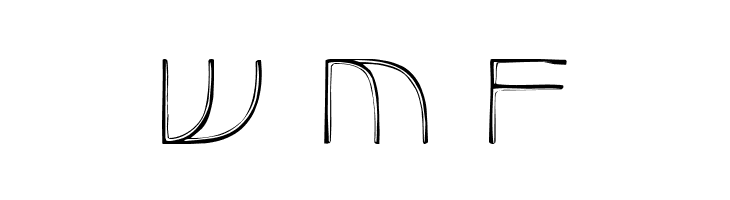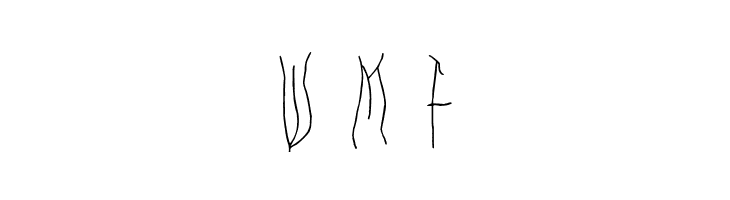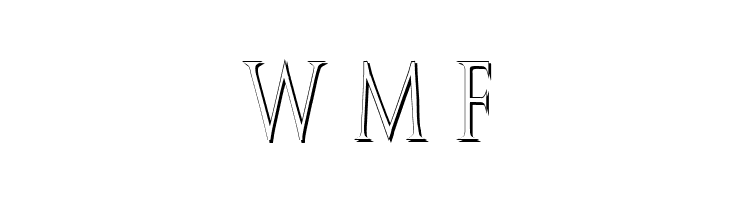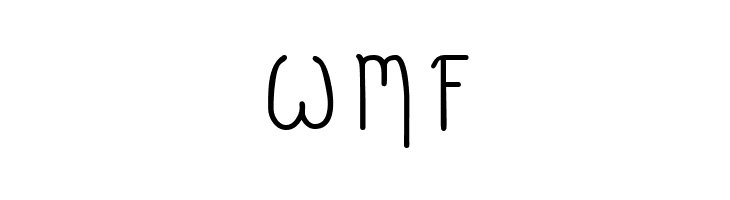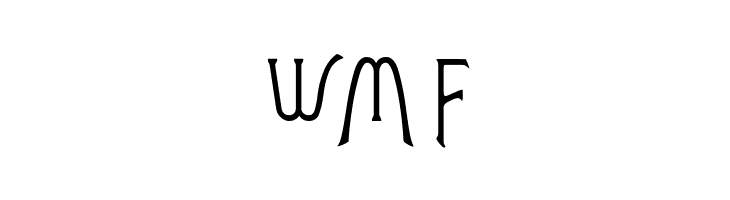
A bold, italicized font with elongated, narrow characters and a modern, dynamic style.
A modern, geometric font with elongated, outlined characters.
A sleek, elongated italic font with outlined characters and a modern aesthetic.
A modern, italic font with elongated, narrow characters.
A modern, sleek font with elongated, rounded characters and a futuristic feel.
A sleek, modern italic font with elongated characters and consistent stroke width.
A modern, minimalist font with thin, elongated strokes and geometric structure.
A decorative, high-contrast font with elongated, narrow letterforms and sharp serifs.
A sleek, modern italic font with thin, elongated letterforms.
A sleek, modern font with elongated, thin strokes and a sophisticated appearance.
A sleek, modern font with elongated, narrow characters and a clean aesthetic.
A bold, elongated font with a vertical emphasis and consistent stroke width.
A dynamic, slanted font with elongated characters and a modern, energetic style.
A modern, geometric font with elongated, narrow characters and rounded edges.
A modern-vintage font with curved, elongated letterforms and art deco influences.
A sleek, modern italic font with elongated, narrow characters and low contrast.
A tall, slender serif font with elegant, elongated characters.
A modern serif font with elegant, elongated letterforms and sharp serifs.
A sleek, modern font with thin, elongated letterforms and consistent stroke width.
A modern, geometric font with elongated, sleek characters.
A sleek, geometric font with narrow, elongated characters and a modern aesthetic.
A whimsical, hand-drawn font with elongated, irregular letterforms.
A playful, hand-drawn font with elongated, irregular letterforms and a whimsical style.
A hand-drawn, modern font with elongated, playful characters and geometric elements.
An intricate and artistic font with swirling, elongated strokes and decorative flourishes.
A dynamic, expressive handwritten font with sharp, elongated strokes.
A mirrored, hand-drawn font with elongated characters and varying stroke thickness.
A whimsical, hand-drawn font with thin, elongated strokes and an artistic flair.
A dynamic, slanted font with sharp, elongated strokes and a vintage calligraphic feel.
A thin, elongated font with a modern and elegant style.
A playful, elongated font with a whimsical, hand-drawn style.
A whimsical, hand-drawn font with elongated, artistic characters.
A whimsical, handwritten font with elongated strokes and artistic flair.
A modern, elongated font with a sleek and artistic design.